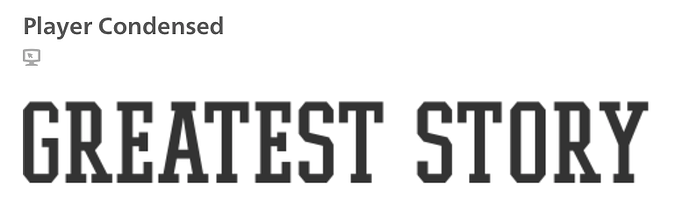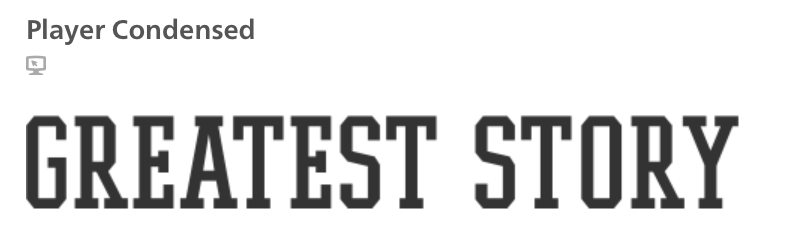
Any ideas of what that tall slender “athletic” font is?
you could try ''player pro condensed bold" or otherwise “college boy”
You got it, Chris. Player Condensed, at Font.com.